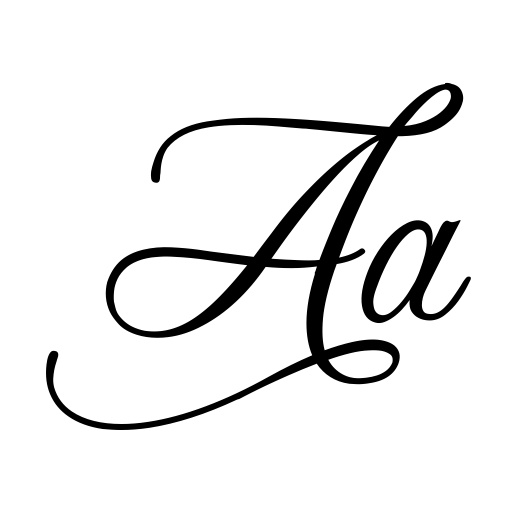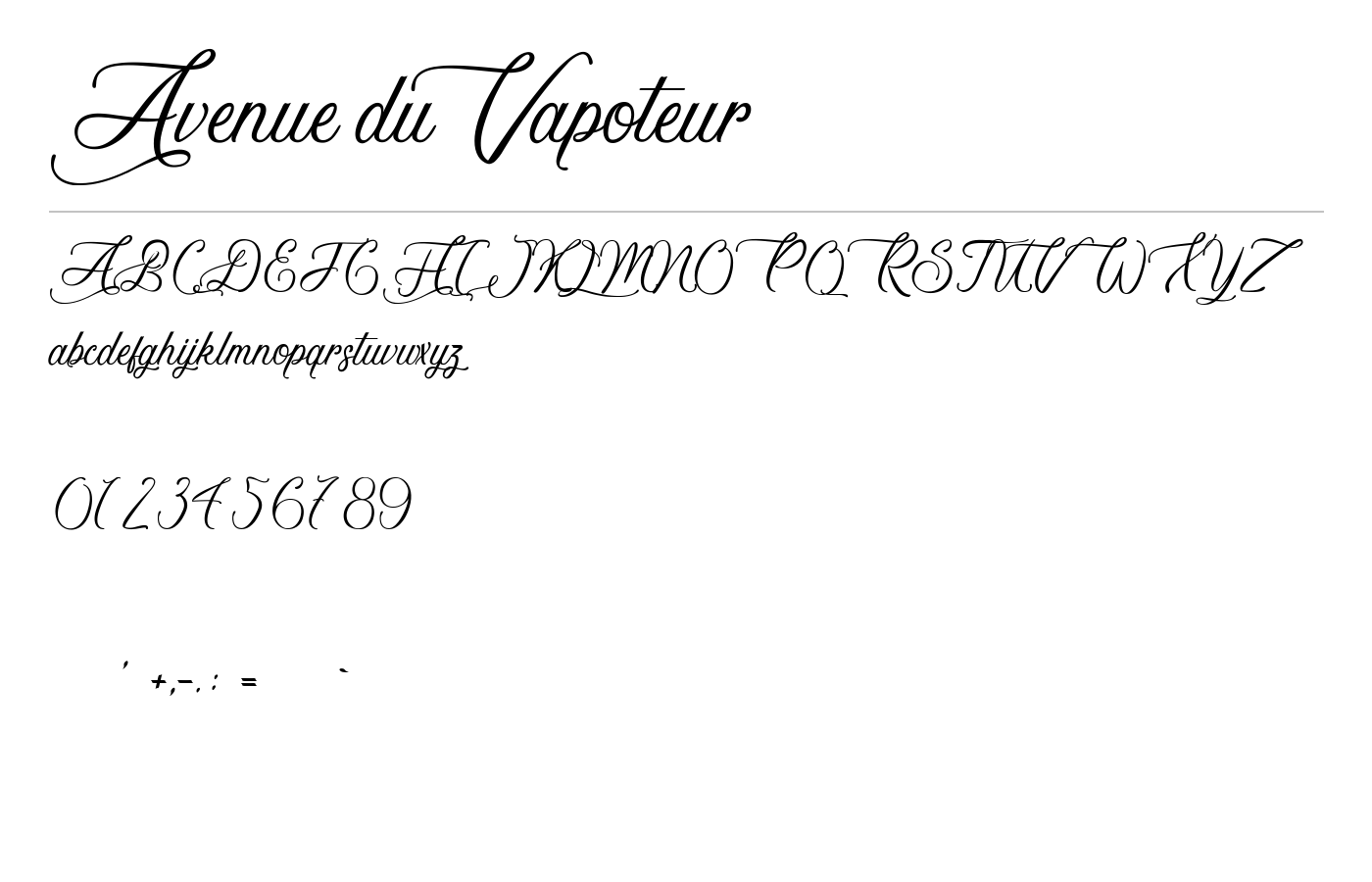
Avenue du Vapoteur is an elegant script font featuring delicate, flowing strokes with elaborate swashes and loops that evoke a refined and graceful feel. Its slender, high-contrast letterforms with smooth curves make it perfect for upscale branding, wedding invitations, and sophisticated packaging where a touch of classic charm is desired. This font works best in large sizes for headlines or decorative text, adding a luxurious and artistic flair to any design.
Avenue du Vapoteur Font
About Avenue du Vapoteur Font